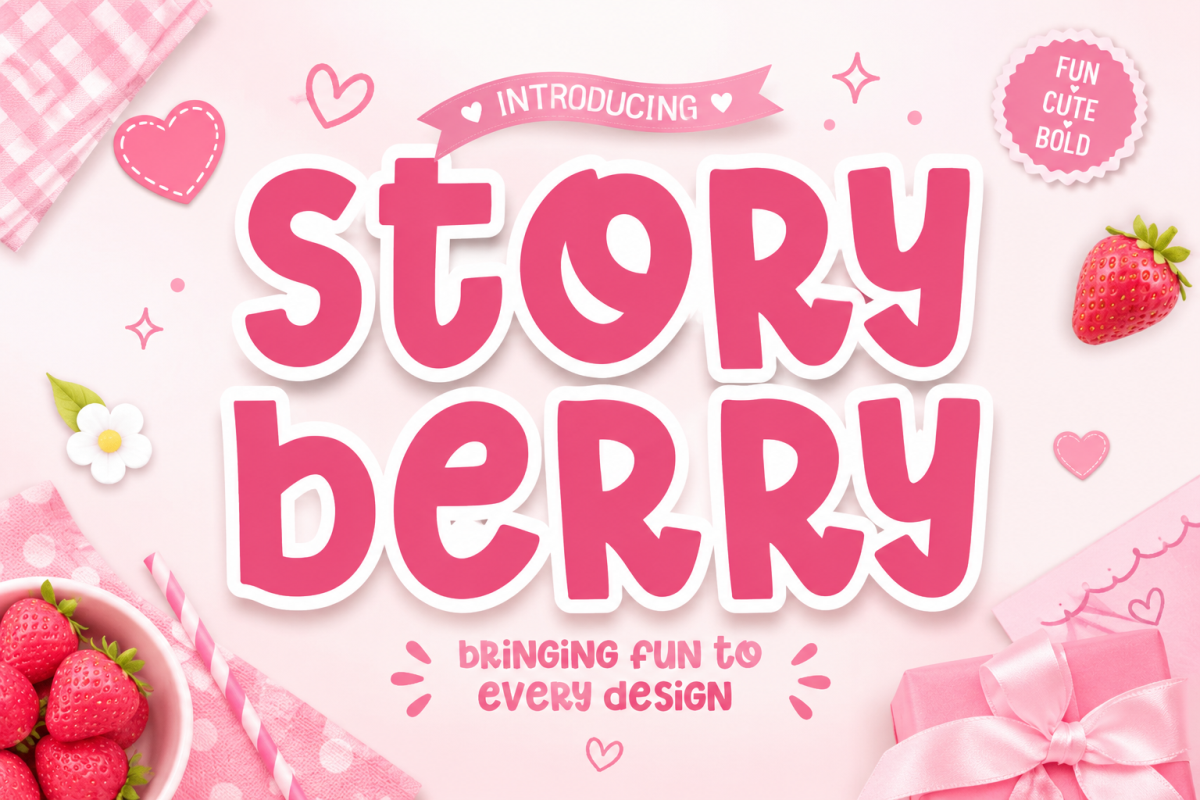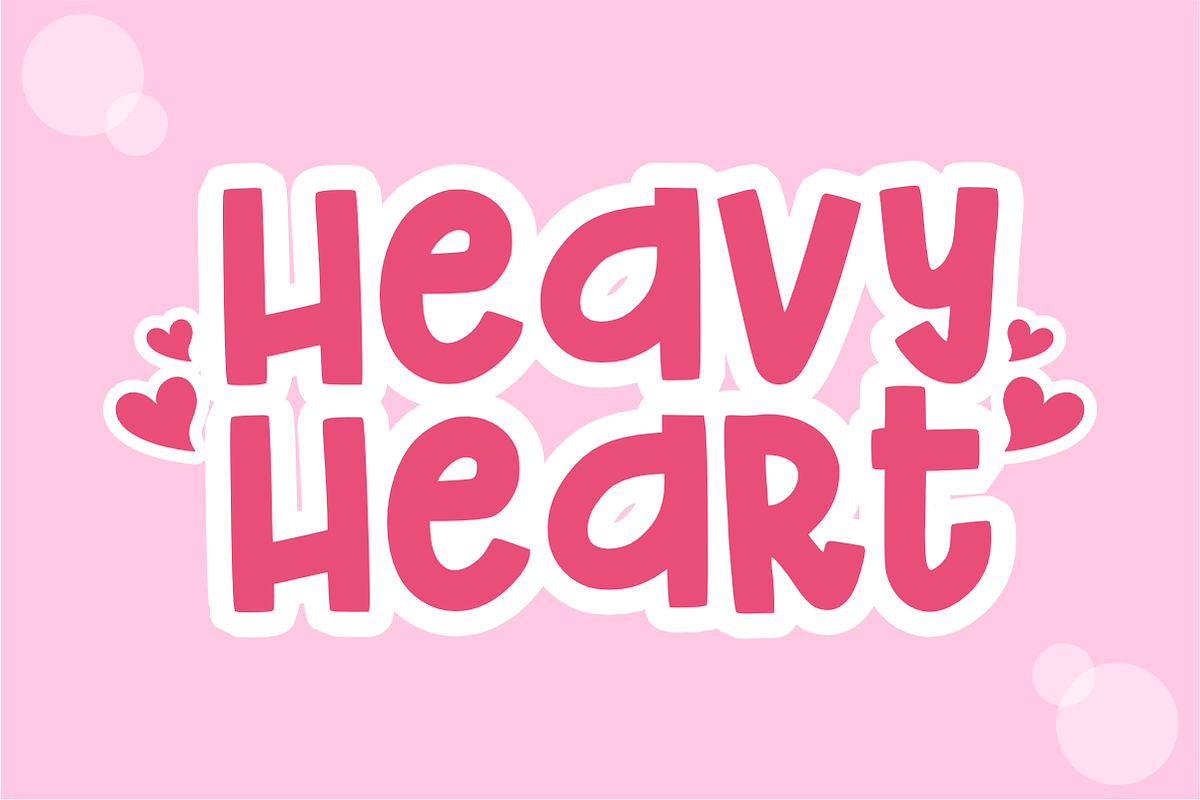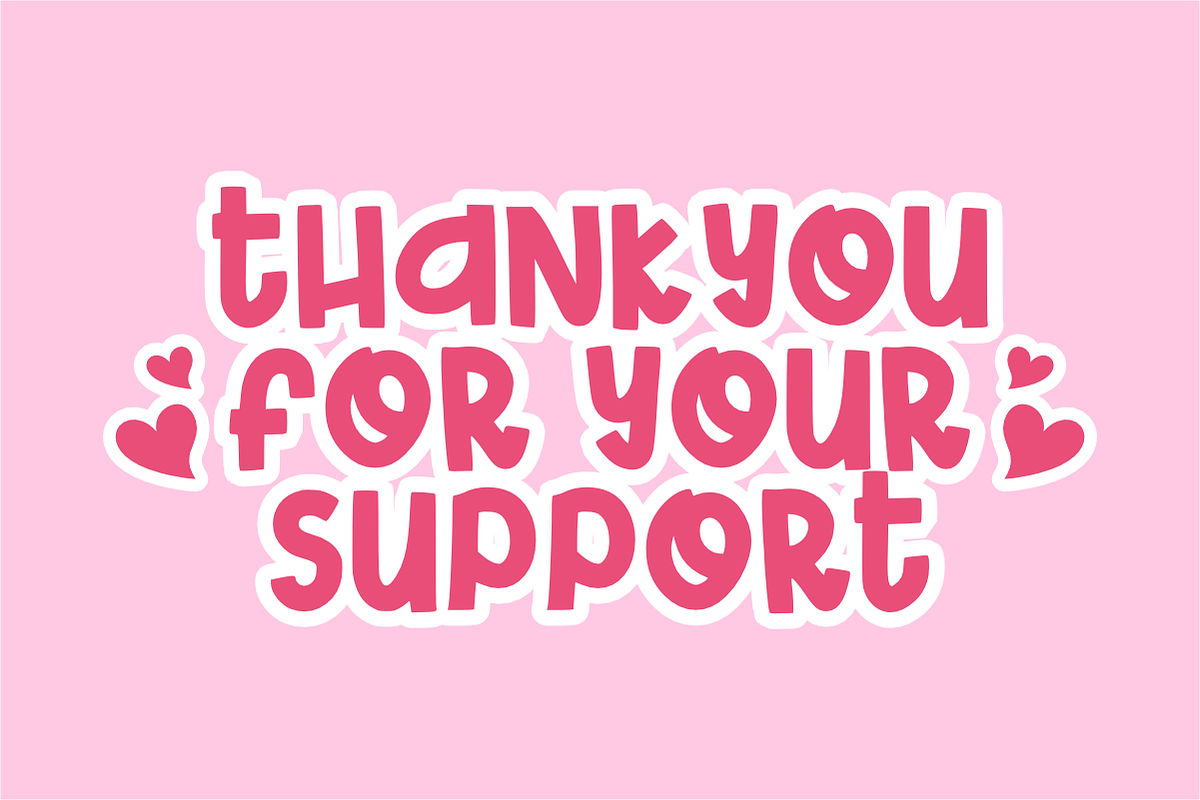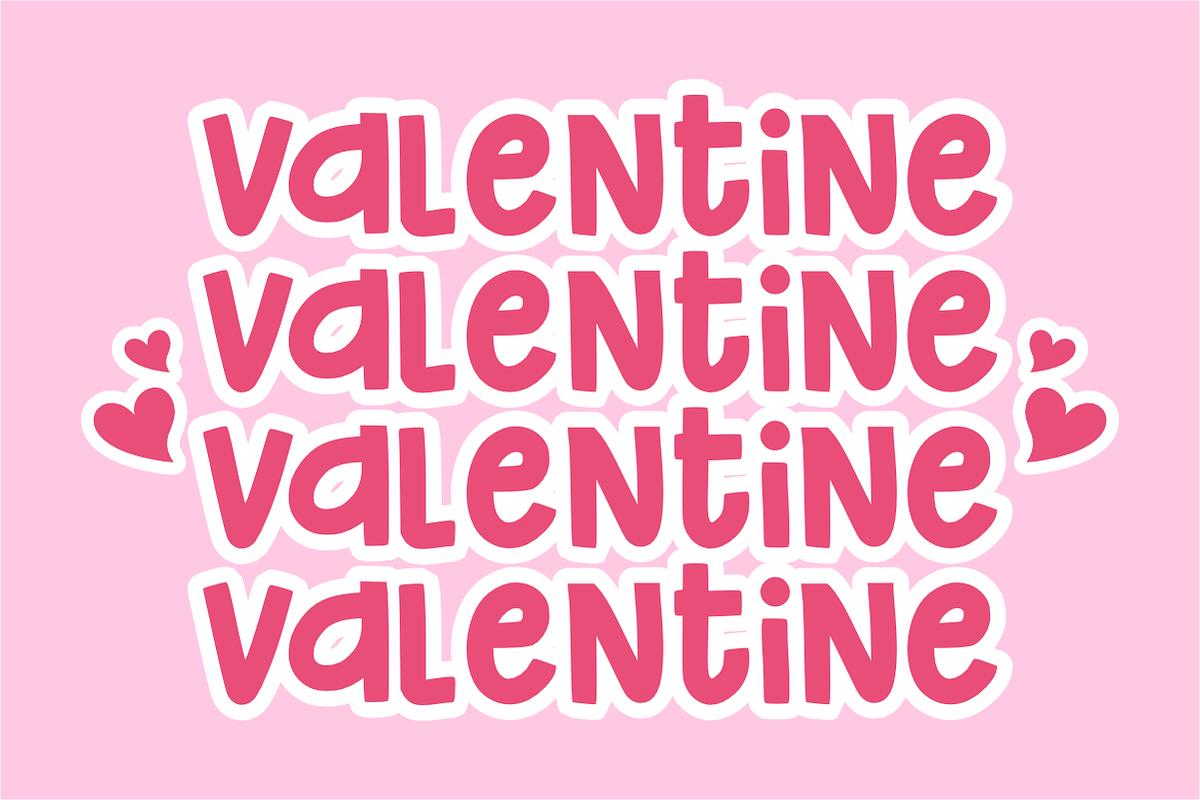
Storyberry - Cute Storybook Font
Storyberry is a sweet, chunky display font featuring soft, rounded letterforms filled with playful storybook warmth and berry-fresh charm. Overflowing with cute, friendly energy and cheerful personality, this bold font adds a delightful pop to children’s books, nursery wall art, party invitations, and craft projects. Every character is cleanly vectorized to guarantee high-resolution prints and smooth, effortless cutting on Cricut and Silhouette machines.